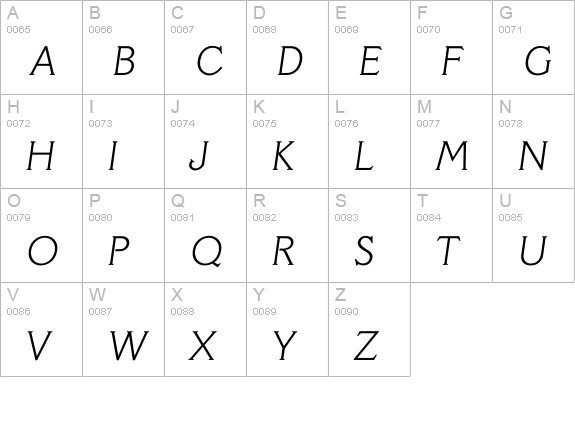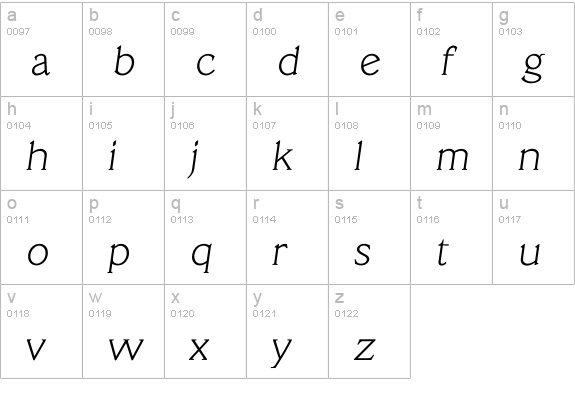
Iveracruz Xlight is a beautifully crafted font that exudes elegance and sophistication. Its slender and delicate letterforms make it perfect for projects that require a touch of refinement. Whether you're designing invitations, creating branding materials, or working on editorial layouts, Iveracruz Xlight will add a touch of class and sophistication to your work. What sets Iveracruz Xlight apart is not just its stunning design, but also the fact that it is available for free. That's right, you can download this exquisite font at absolutely no cost from FontsMarket.com. We believe that creativity should be accessible to everyone, and by offering Iveracruz Xlight for free, we hope to inspire and empower designers, artists, and creators from all walks of life. With its generous x-height and graceful curves, Iveracruz Xlight is incredibly versatile. It works equally well in both small and large sizes, allowing you to create stunning typographic compositions. Its subtle details and clean lines make it highly legible, ensuring that your message is conveyed effortlessly. Whether you're designing for print or digital, Iveracruz Xlight is sure to make a lasting impression. Its timeless aesthetic and understated elegance will elevate any project, giving it a touch of sophistication and class. So why wait? Download Iveracruz Xlight for free today at FontsMarket.com and unleash your creativity like never before.